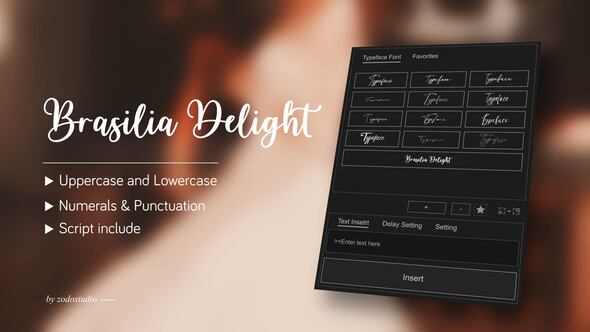
In the world of design, typography plays a pivotal role in conveying messages and setting the tone of a project. The Free Videohive 58361955 Animated Typeface – Brasilia Delight offers designers a unique blend of elegance and modernity, making it an invaluable asset for various creative endeavors.